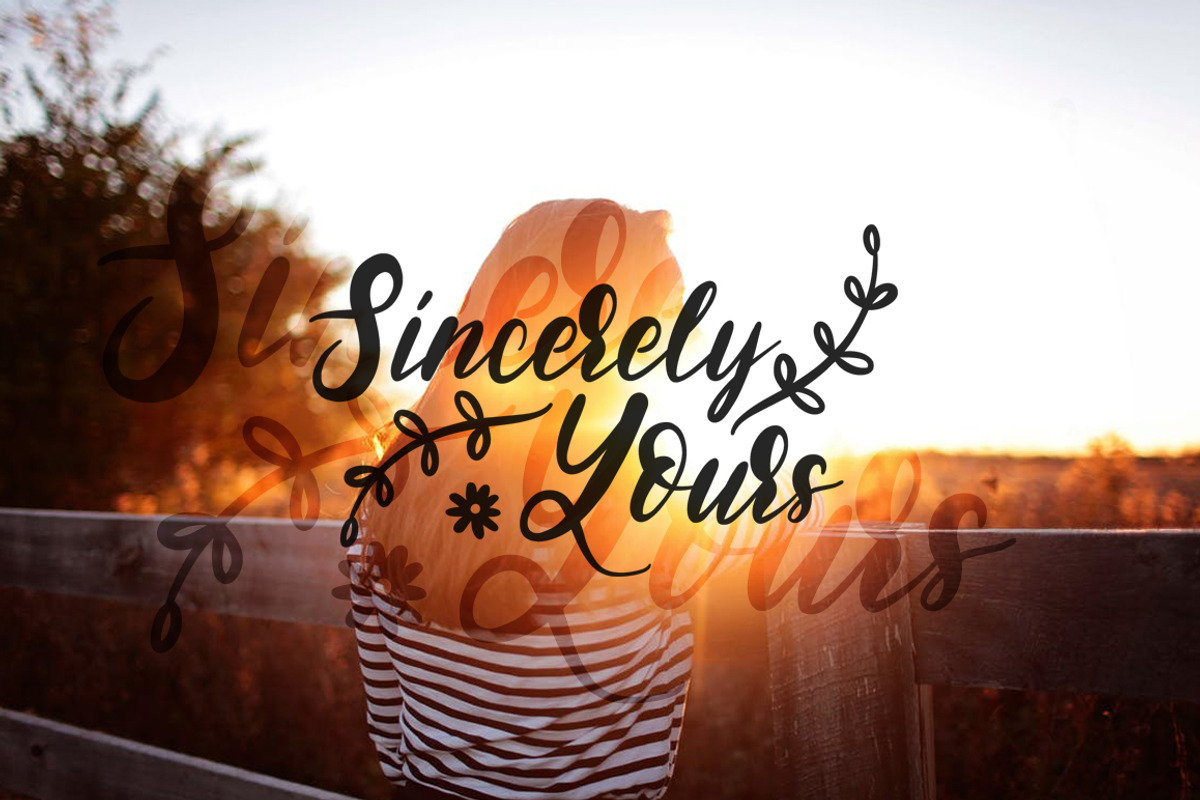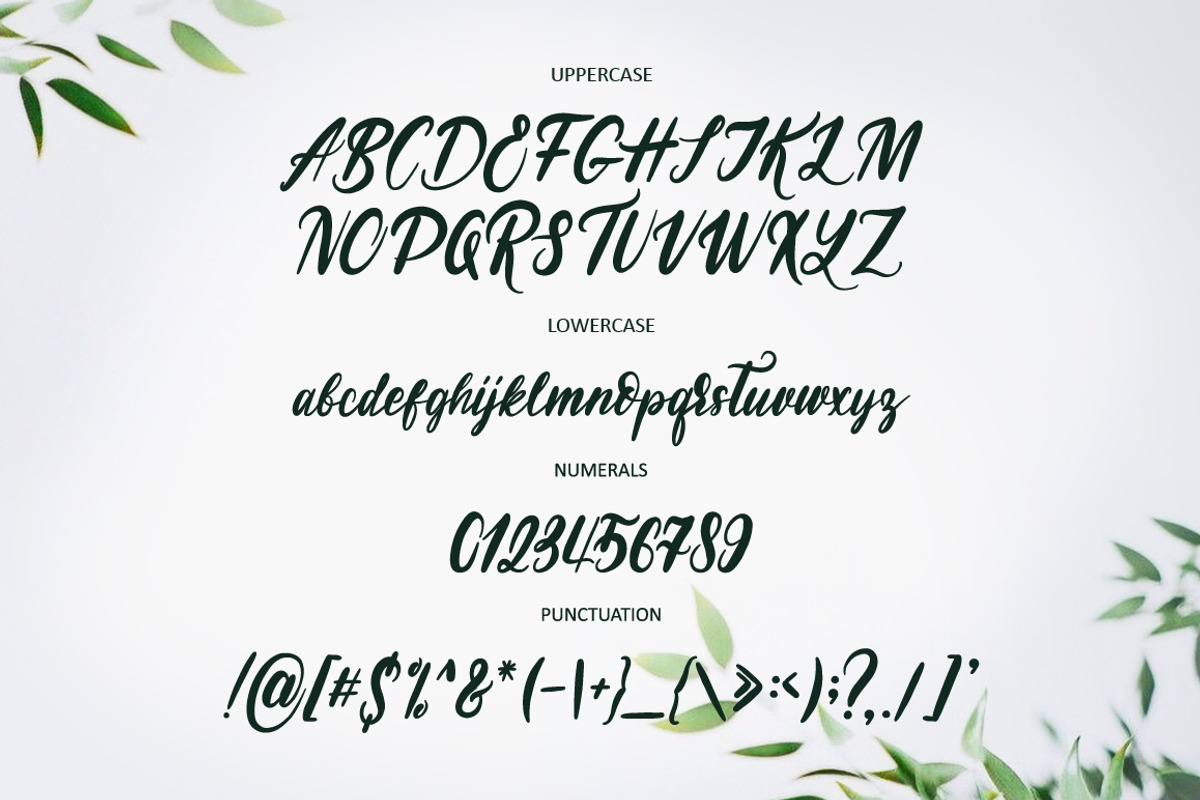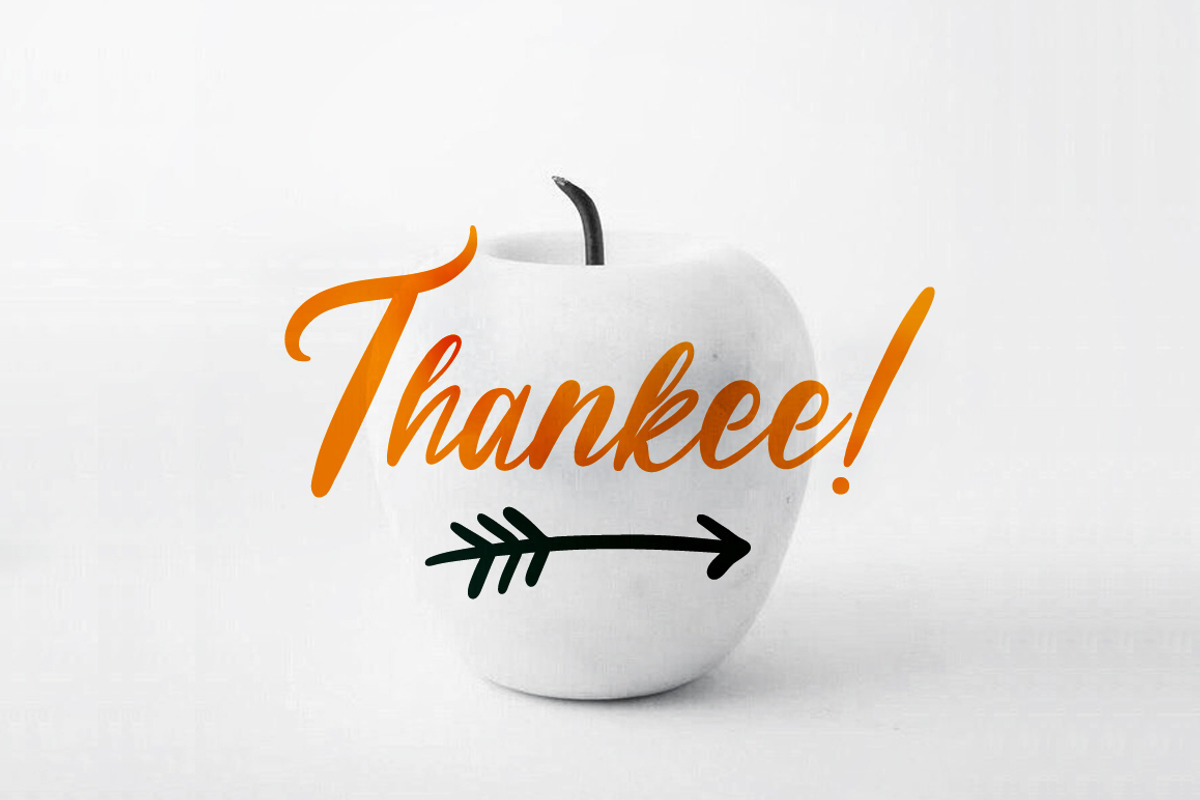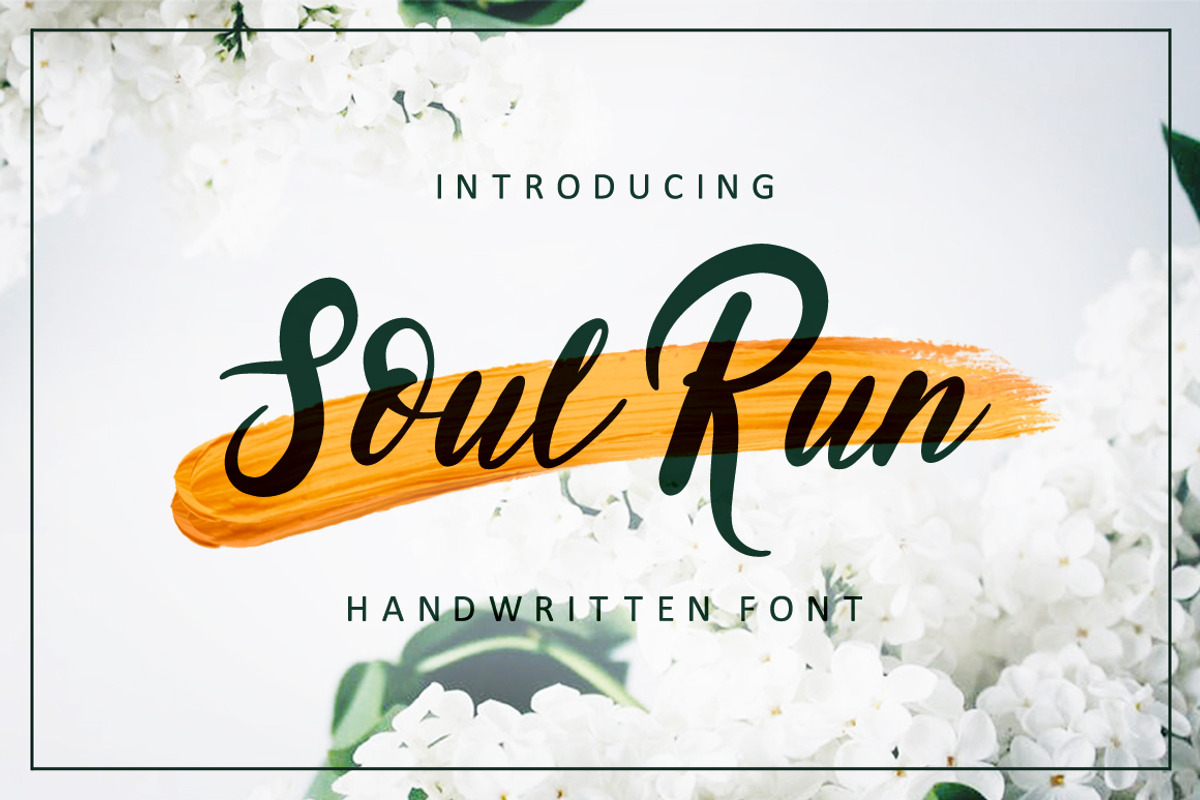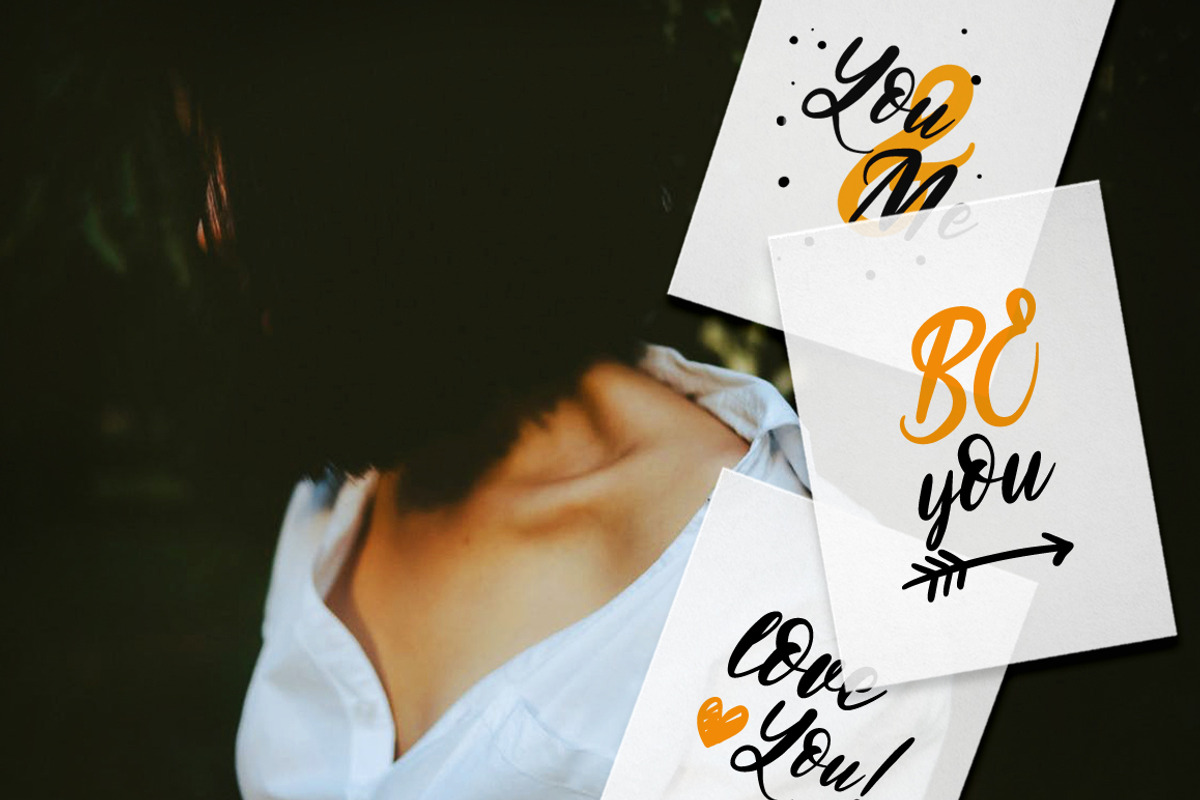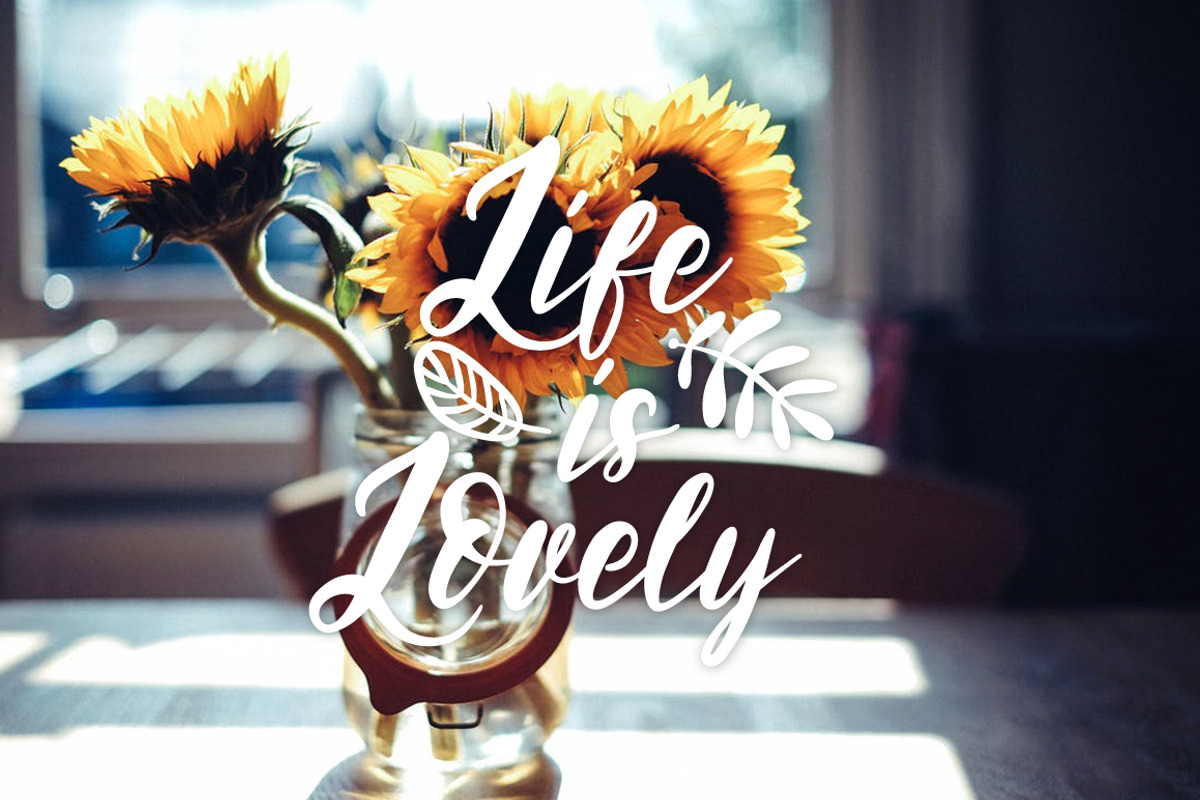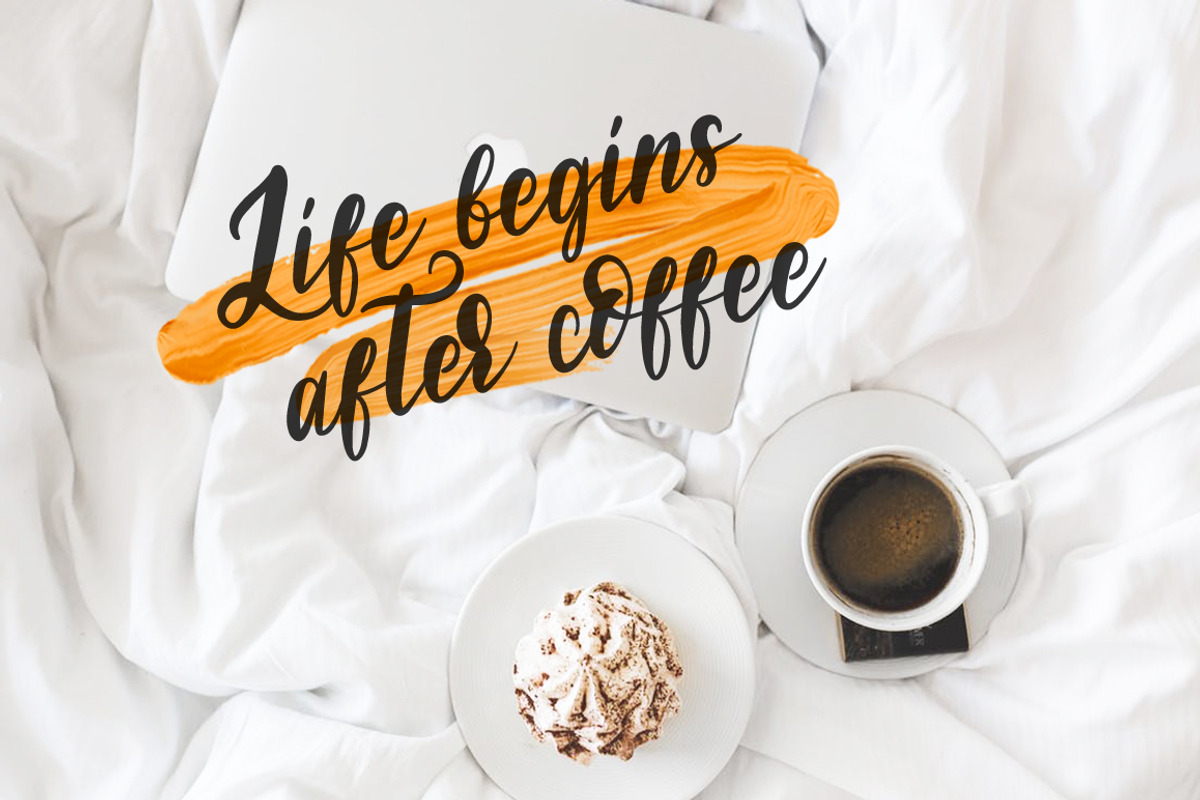
NEW! Soul Run Brush Font
Hello everyone! I am very pleased to introduce to you my new handdrawn font SOUL RUN! Font perfectly combines the smoothness of lines, connections and slopes. Suitable for designing projects, creative works, wedding invitations, for signatures to your memorable photos and creating postcards.